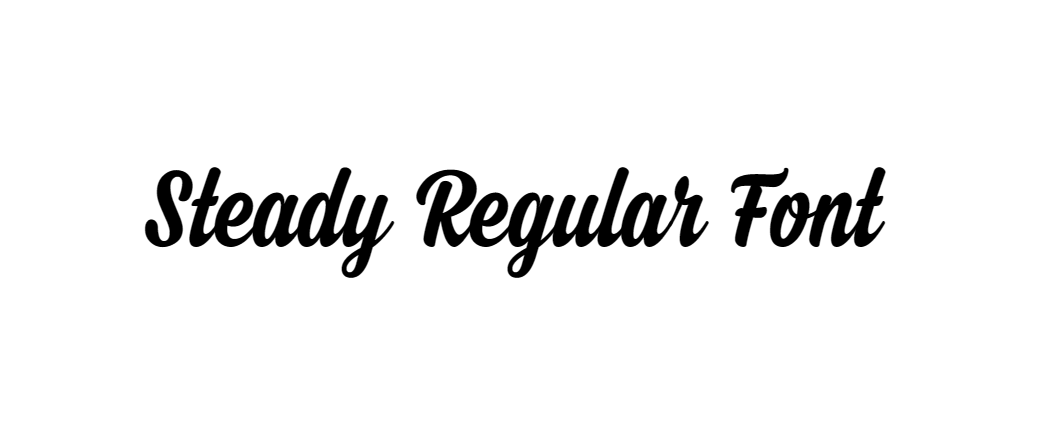
Steady Regular
Steady Regular is a calligraphy font designed by Artimasa (2014). It has that hand-lettered, flowing feel people look for when regular type seems too stiff. It's a free download, and you can try it with your own text in the preview above first.
- Designer: Artimasa
- Glyphs: 322
- OpenType features: Ligatures, contextual alternates, stylistic alternates and 10 stylistic sets
You get every letter from A to Z in both cases and all the numbers from 0 to 9, which means Steady Regular can handle full sentences, dates and prices. Everyday marks like &, !, ? and @ are there too. Thanks to its accented letters, it also works for Spanish, French, Portuguese and Italian, not just English. Of its 322 glyphs, about 130 are not on your keyboard at all. That is where the alternates explained below live.
Designers usually reach for fonts like Steady Regular when they're making wedding invitations, certificates and elegant quotes. Script fonts read best in short bursts, so keep it to names, titles and one-line quotes. Skip all caps: script capitals are drawn to start a word, not to fill one.